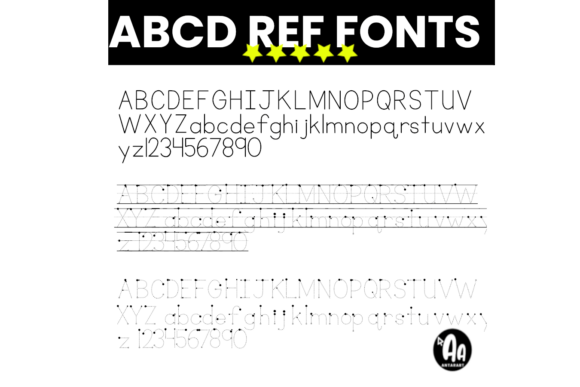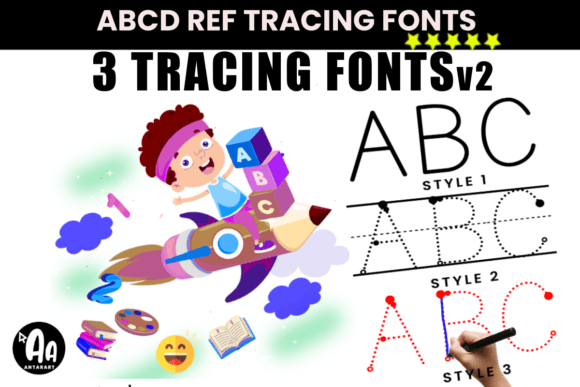
Unlocking the Power of Abcd Ref Tracing Dotted Font: A Comprehensive Guide
As a creative, I’m sure you’ve been there – working on a project, pouring your heart and soul into it, and suddenly realizing that the perfect font is missing. I recall a particularly frustrating experience when I was designing a handwriting workbook for kids. I needed a font that would not only engage young learners but also help them develop strong handwriting skills. That’s when I stumbled upon the Abcd Ref Tracing Dotted Font, and it changed the game!
A Personal Review: What I Love and What I Think Could Be Improved
- ✅ Variety of styles: This font pack includes three unique styles – regular plain font, lined dotted fonts with beginning guided dots, and unlined dotted fonts with beginning guided dots. It’s perfect for creating customized tracing worksheets and alphabet practice sheets.
- ✅ Supports early writing and letter recognition: The tracing fonts are designed to support early writing, letter recognition, and pre-writing readiness in young learners.
- ✅ Improves letter memory and motor skills: The directional arrows and beginning dots help improve letter memory and motor skills, making it an excellent tool for kids.
- ⚠️ Limited use cases for older students: While the font is perfect for PreK to 2nd grade, it may not be suitable for older students who require more advanced handwriting practice.
- ⚠️ Requires some creativity: While the font is versatile, it does require some creativity to come up with engaging and effective designs.
The Story Behind Abcd Ref Tracing Dotted Font
The Abcd Ref Tracing Dotted Font was designed with one goal in mind: to help young learners develop strong handwriting skills and master the alphabet. The font’s creator, a passionate educator, wanted to create a tool that would make learning fun and engaging. With its unique styles and features, Abcd Ref Tracing Dotted Font has become a go-to resource for teachers, homeschoolers, and parents alike.
| Font Name | Abcd Ref Tracing Dotted Font |
| Author | AntarArt |
Q: What is Abcd Ref Tracing Dotted Font?
A: Abcd Ref Tracing Dotted Font is a tracing font pack that includes three unique styles – regular plain font, lined dotted fonts with beginning guided dots, and unlined dotted fonts with beginning guided dots.
Q: What is Abcd Ref Tracing Dotted Font used for?
A: Abcd Ref Tracing Dotted Font is used for creating customized tracing worksheets, alphabet practice sheets, classroom resources, handwriting books, and more.
Q: Is Abcd Ref Tracing Dotted Font suitable for older students?
A: While Abcd Ref Tracing Dotted Font is perfect for PreK to 2nd grade, it may not be suitable for older students who require more advanced handwriting practice.